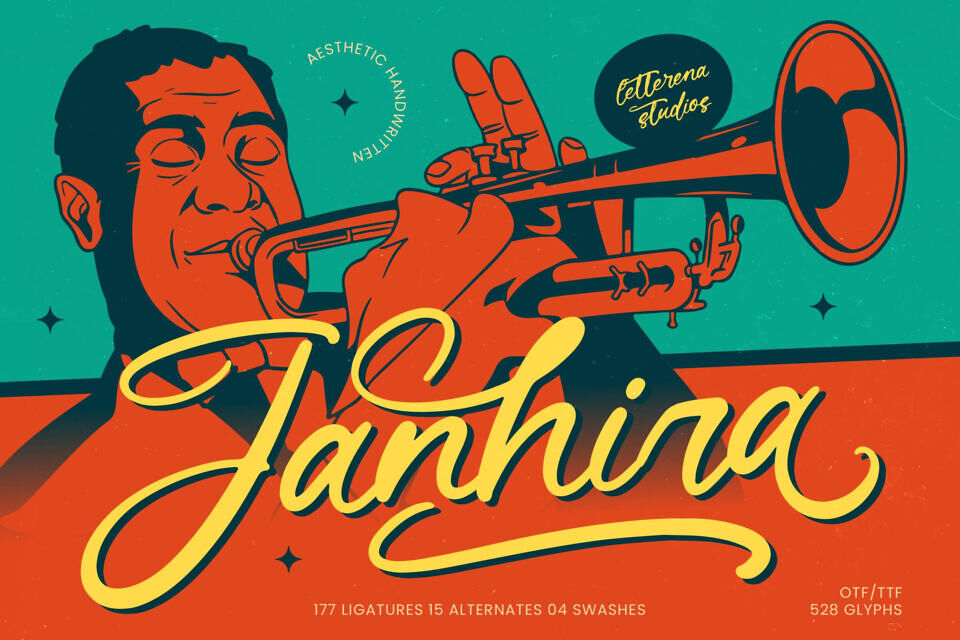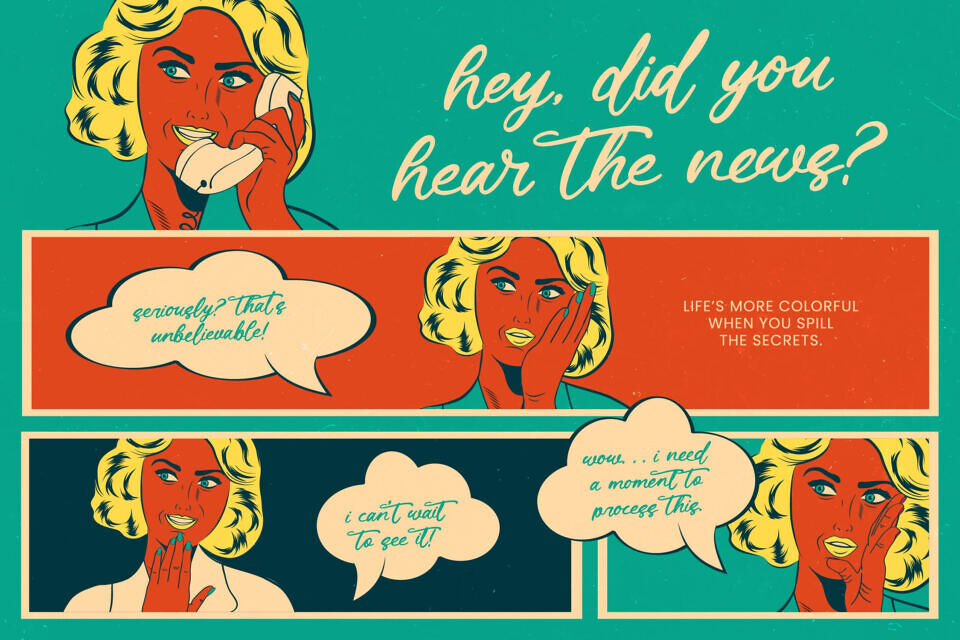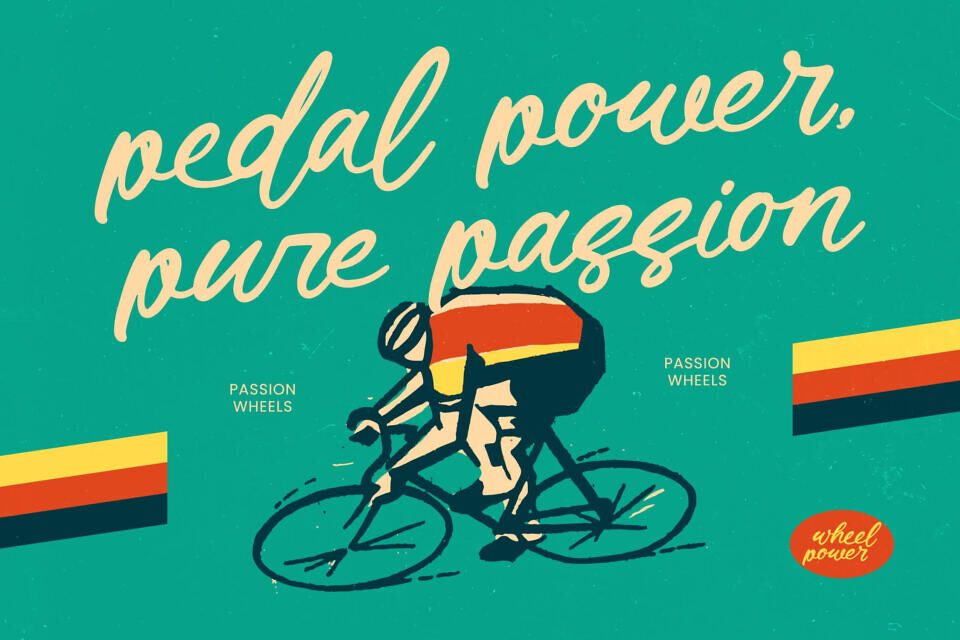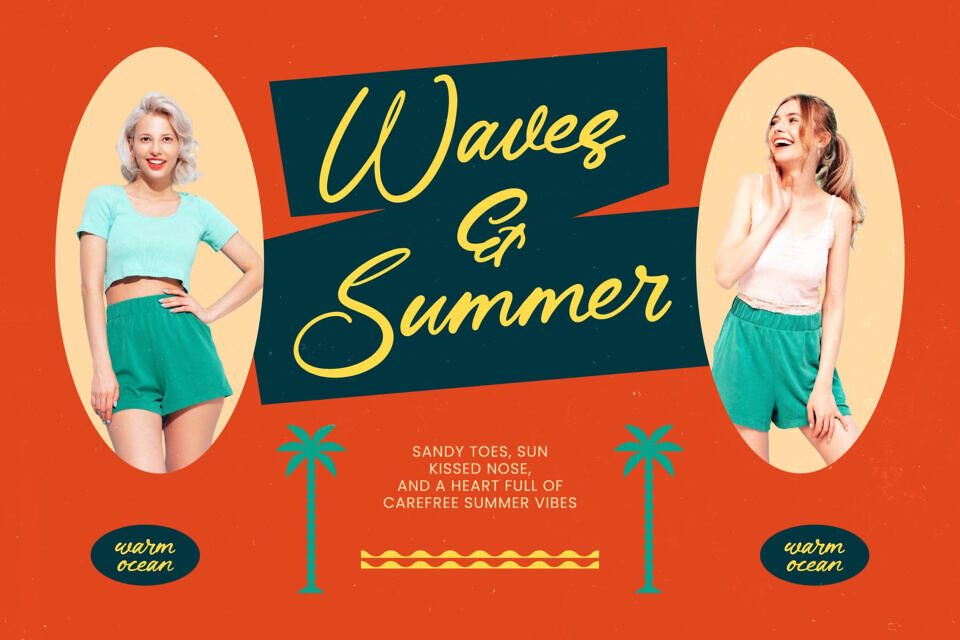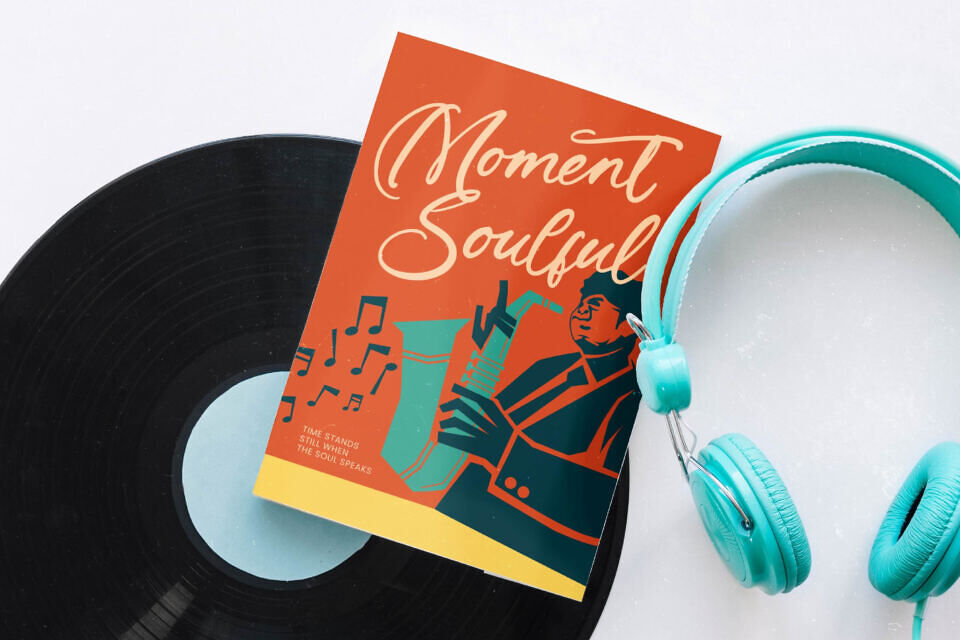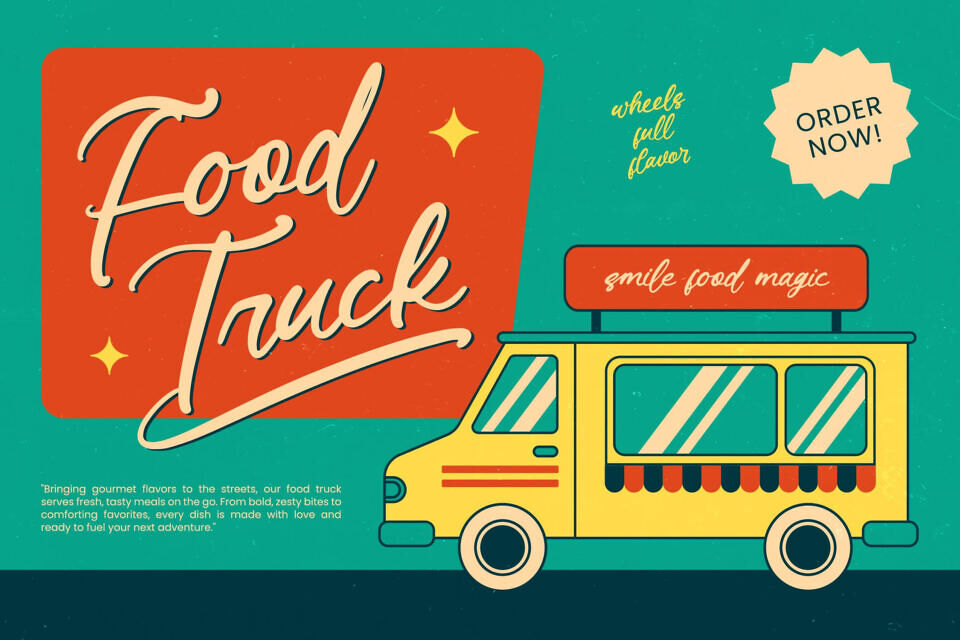
Janhira Font
Elevate your brand with a sophisticated, handwritten font that balances flow and charm. Janhira offers a unique, human touch with dynamic strokes and artistic flourishes, perfect for luxury branding, packaging, and editorial design.
With over 500 glyphs and multilingual support, it provides unmatched flexibility and versatility for global projects, making it a valuable asset for designers seeking professional-grade results and a lasting impression.